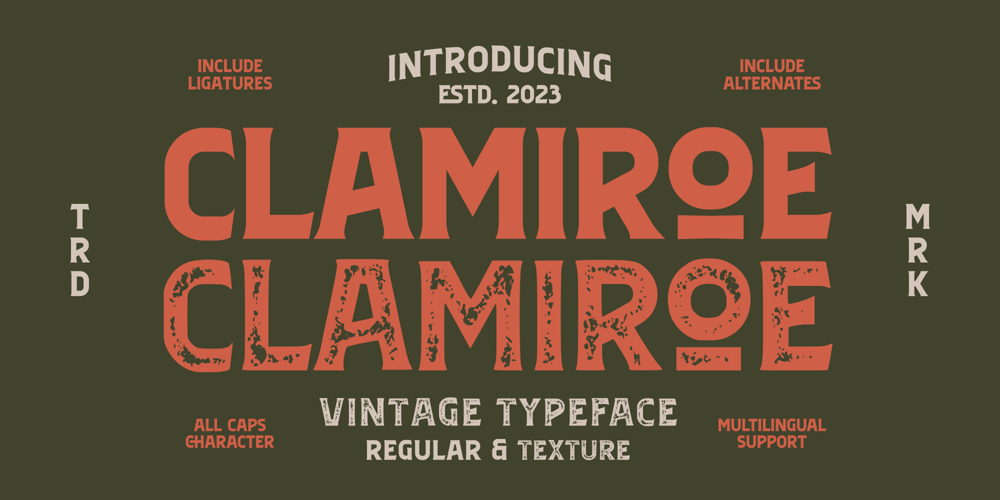
Clamiroe Font Family was designed by Holis Majid and published by Holis.Mjd. Clamiroe contains 2 styles and family package options. Introducing new display vintage typeface with 2 style clean and textured called “Clamiroe”. This font inpired by old vintage packaging design, vintage flyer headlines, and vintage sign. Clamiroe is all caps font is good for your branding, poster design, packaging, book cover, flyer, t-shirt design, and more.This typeface include 38 Ligatures and Alternates.